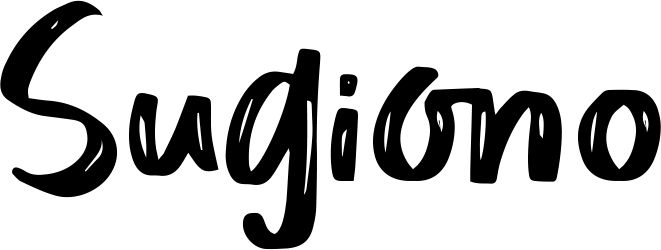
Sugiono Font
Designed byKhurasan
You can add an artistic and dramatic touch to your artwork such as logos, social media posts, book covers, and flyers by using a script font such as Sugiono. It is designed in a brush style and looks like a painting on a canvas, so it carries a sense of vivacity, joy, youth, and professionalism.